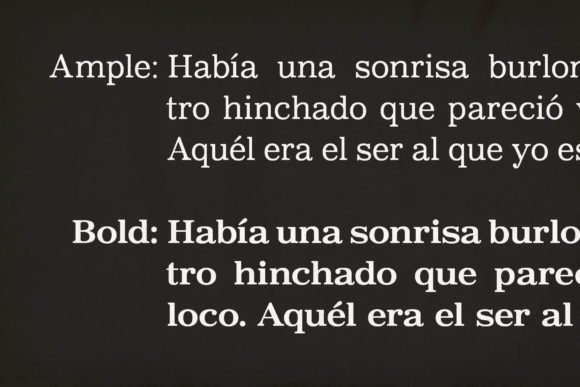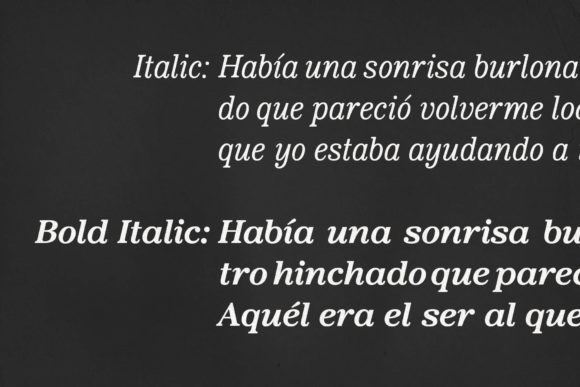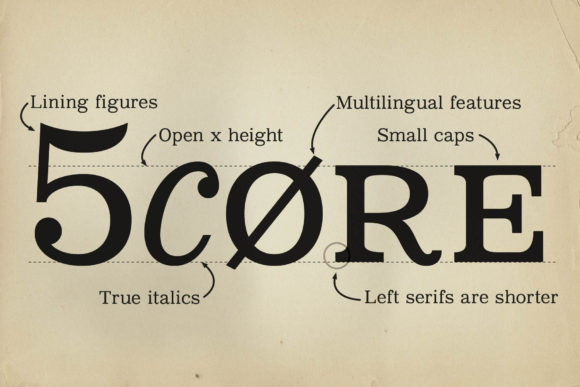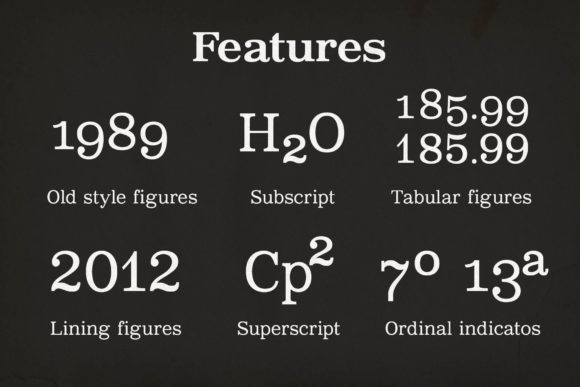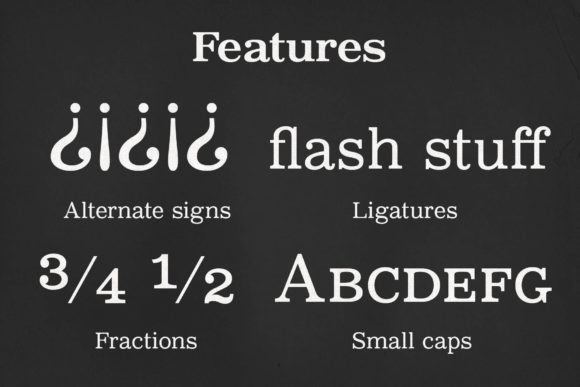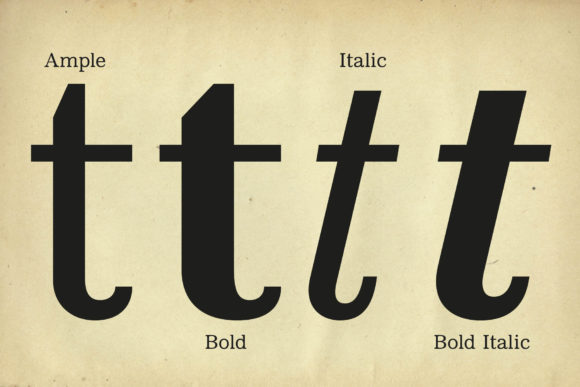
Discover the Timeless Charm of Bookseller Cp Ample Font
Are you a designer, craftsperson, or typography enthusiast searching for a font that embodies the classic feel of old books? Look no further than Bookseller Cp Ample Font. This serif font is meticulously adjusted for text at smaller sizes, offering an unparalleled old book feeling that’s sure to elevate your designs. In this article, we’ll delve into the features and benefits of Bookseller Cp Ample, exploring why it’s an excellent choice for books, magazines, editorial design, small text, and captions.
The Distinctive Characteristics of Bookseller Cp Ample
Bookseller Cp Ample boasts a wide look that allows you to fill text lines with ease, making it perfect for lengthy content. Its solid shapes ensure that your text remains clear and legible, even at smaller sizes. This font is not just about aesthetics; it’s also designed with functionality in mind. It features:
- Small Caps: Add a touch of sophistication to your designs with small caps, ideal for headings, titles, and emphasis.
- Old-Style Figures: Give your text a vintage feel with old-style figures that blend seamlessly into your content.
- Lining Figures: For a more modern look, lining figures provide a clean and elegant alternative.
- Fractions: Add a level of detail to your designs with fractions, perfect for recipes, technical writing, and more.
- Basic Cyrillic Alphabet: Expand your design possibilities with the inclusion of a basic Cyrillic alphabet.
Why Choose Bookseller Cp Ample for Your Designs?
Bookseller Cp Ample is more than just a font; it’s a design solution. Its unique blend of classic and functional elements makes it an excellent choice for various applications:
- Books and Magazines: Create a professional and timeless look for your publications with Bookseller Cp Ample’s serif design.
- Editorial Design: Elevate your editorial content with a font that’s both elegant and readable.
- Small Text and Captions: Ensure that your smaller text elements, such as captions and footnotes, are clear and legible.
Tips for Using Bookseller Cp Ample Effectively
To get the most out of Bookseller Cp Ample, consider the following tips:
- Pair with Other Fonts: Combine Bookseller Cp Ample with sans-serif fonts for a striking contrast.
- Adjust Font Sizes: Experiment with different font sizes to create visual hierarchy and emphasis.
- Use Typography Features: Take advantage of the font’s features, such as small caps and old-style figures, to add depth to your designs.
| Font Name | Bookseller Cp Ample Font |
| Author | cyanotype |
Bookseller Cp Ample Font is a versatile and elegant serif font that’s perfect for designers and craftspersons seeking to add a touch of classic sophistication to their work. With its wide look, solid shapes, and range of typographic features, it’s an excellent choice for a variety of applications. Whether you’re working on a book, magazine, editorial design, or small text, Bookseller Cp Ample is sure to deliver a timeless and professional look.